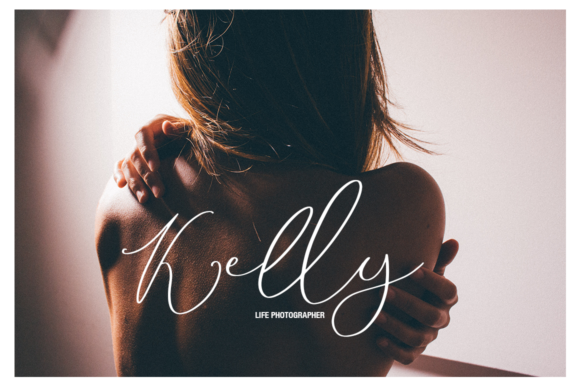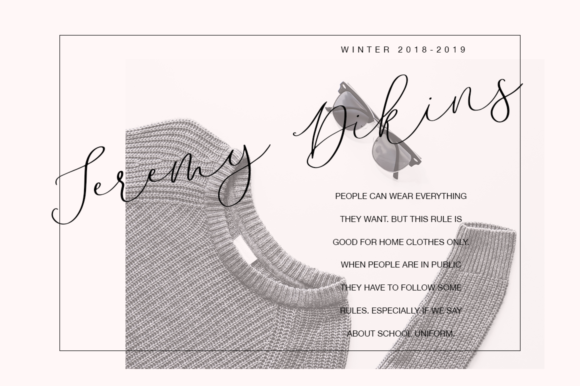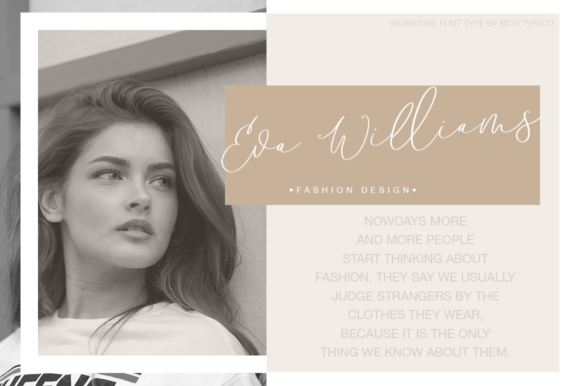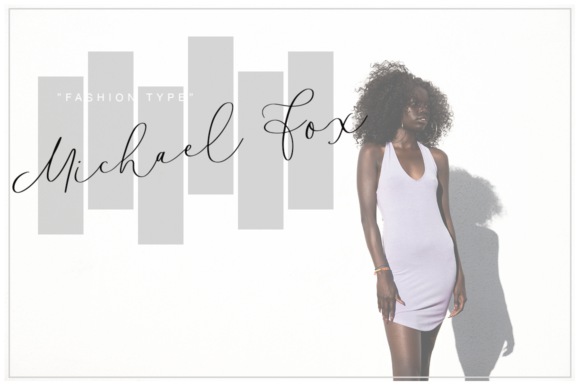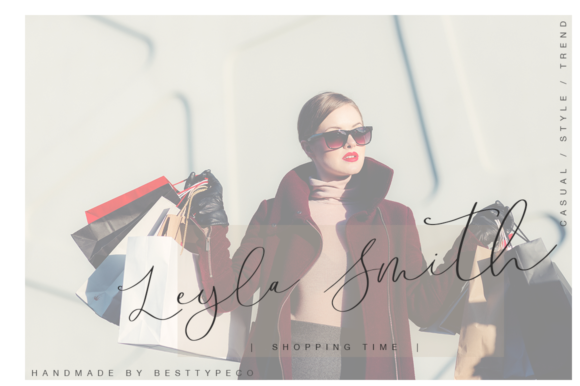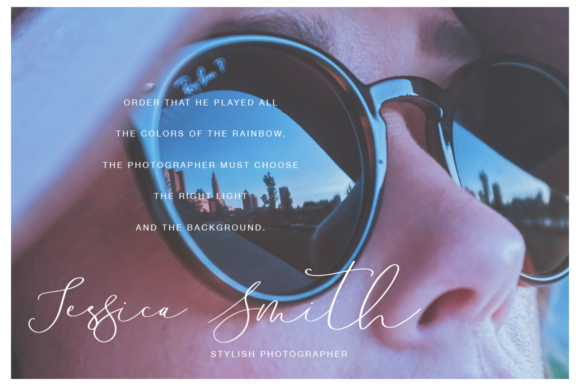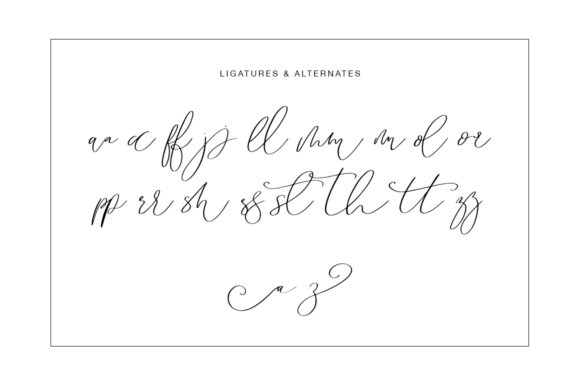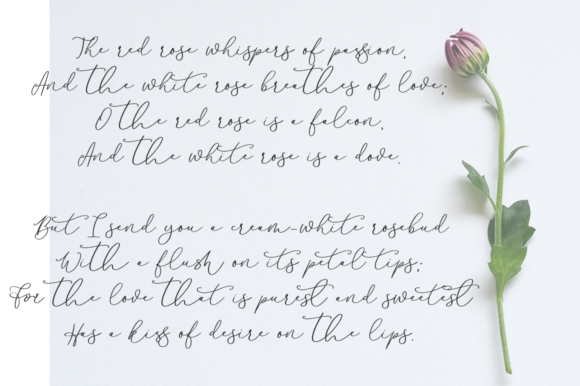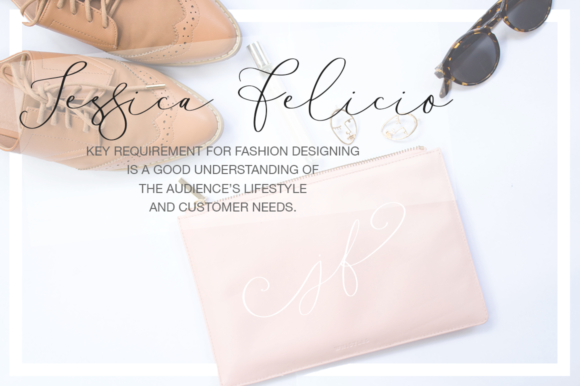
Beauty Lady Font
About Beauty Lady Font
The Beauty is a beautiful handmade calligraphy font. Its thin letters will give your designs an elegant touch with an unique style.